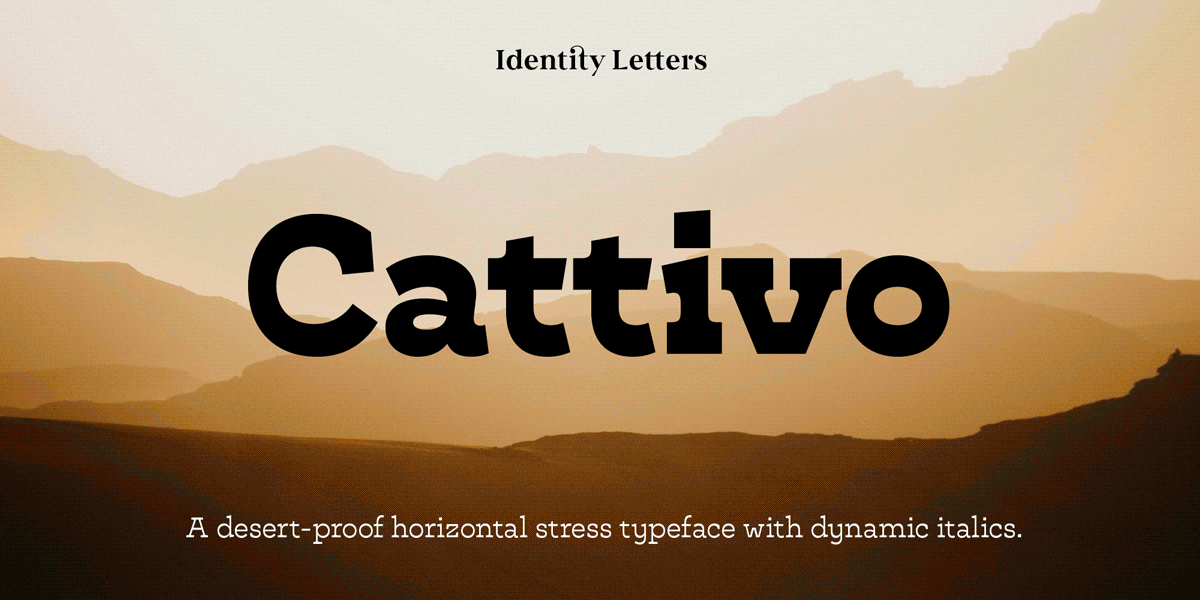
Cattivo is a frontier-proof slab-serif typeface that feels at home in your favorite Spaghetti Western. With horizontal stress, sleek curves, and contemporary proportions, it is a tongue-in-cheek reinterpretation of the Italienne genre. Reduced contrast and advanced typographic features make it suitable for both display use and short segments of body text. Independently drawn italics—dynamic and inspired by handwriting—add to the versatility.
The full family provides a set almost 700 glyphs in 9 weights plus 9 italics. It is optimized for print and digital use. Book this ride on the steam train. Start exploring uncharted territories. With Cattivo, you too will be ready for the next gold rush.